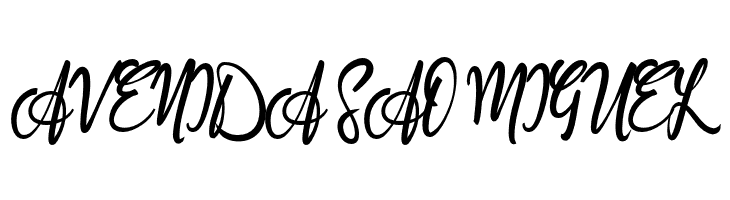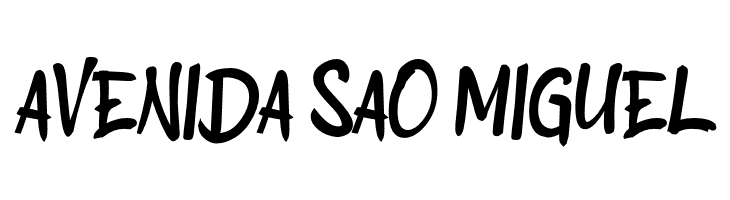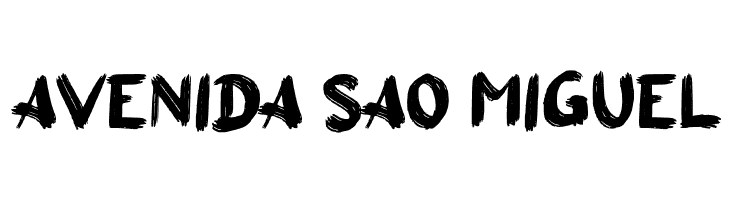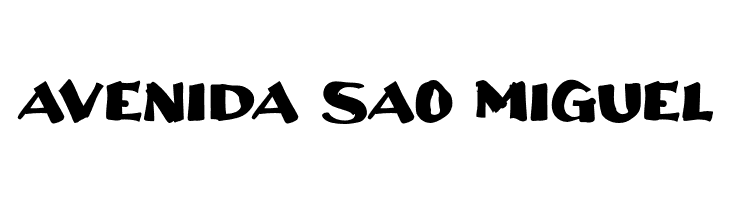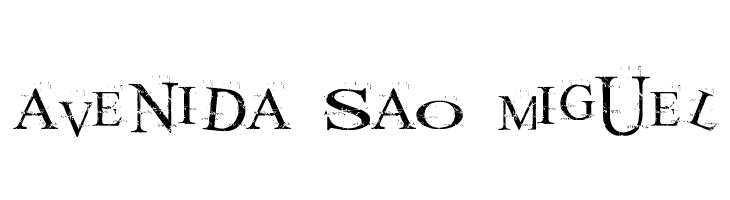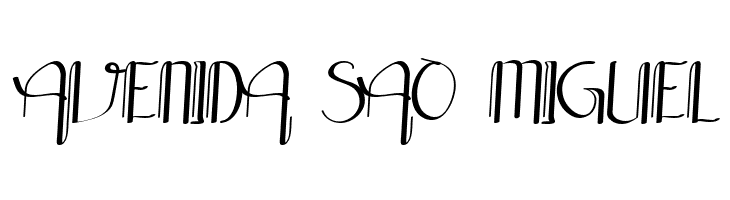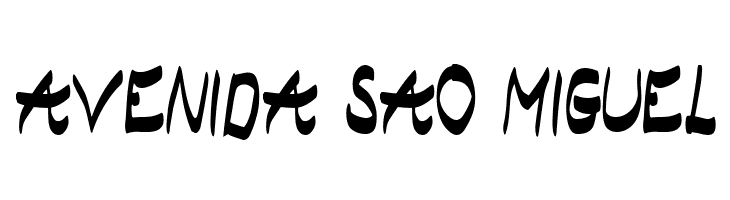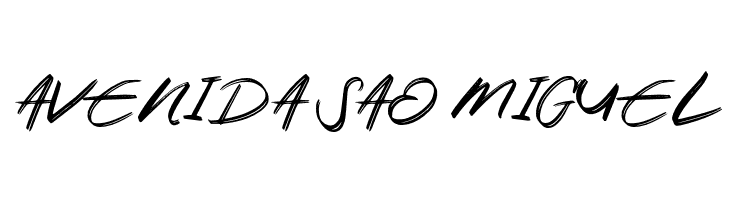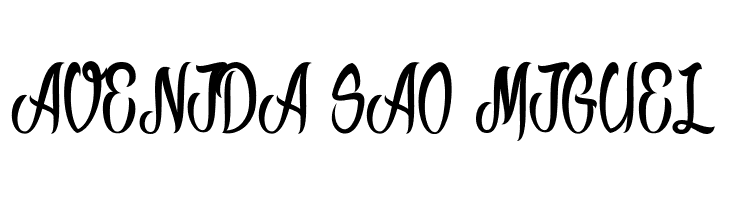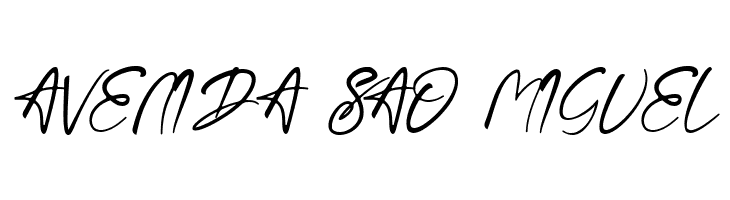
A dynamic, cursive font with expressive strokes and a modern calligraphic style.
An artistic, calligraphic font with flowing lines and decorative flourishes.
A decorative and artistic font with elegant curves and swashes.
A whimsical, cursive-like font with artistic flair and elegance.
A playful, hand-drawn font with a rough, textured finish.
A playful, hand-drawn font with a casual and whimsical style.
A bold, modern sans-serif font with clean lines and strong visual impact.
A bold, modern sans-serif font with clean lines and excellent legibility.
A modern, extra-bold sans-serif font with a geometric design.
A modern, geometric sans-serif font with a minimalist design.
A modern, geometric sans-serif font with a sleek and elegant design.
A modern, geometric sans-serif typeface with a clean and condensed appearance.
A modern, semi-bold sans-serif font with a clean and geometric design.
A thin, modern sans-serif font with a sleek and minimalist design.
A bold, dynamic font with sharp, angular strokes and a flame-like appearance.
A bold, brush-like font with dynamic, angular strokes and a modern artistic flair.
A dynamic, expressive handwritten font with fluid, sweeping strokes.
A decorative script inspired by traditional Balinese styles with intricate curves and flourishes.
An elegant, calligraphic font with artistic curves and sharp angles.
A bold, handwritten font with a playful and dynamic style.
A bold, expressive handwritten font with dynamic strokes.
A bold, brushstroke-style font with a dynamic and textured appearance.
A bold, brushstroke font with a textured, hand-painted appearance.
A bold, handwritten font with dynamic and playful character shapes.
A fluid, cursive script font with elegant, interconnected strokes.
A bold, impactful font with thick, uniform strokes for strong presence.
A bold, playful font with rounded edges and a bubbly appearance.
An elegant script font with intricate loops and swirls.
A lively, cursive script font with elegant loops and artistic flair.
A bold, hand-drawn style font with thick strokes and dynamic character.